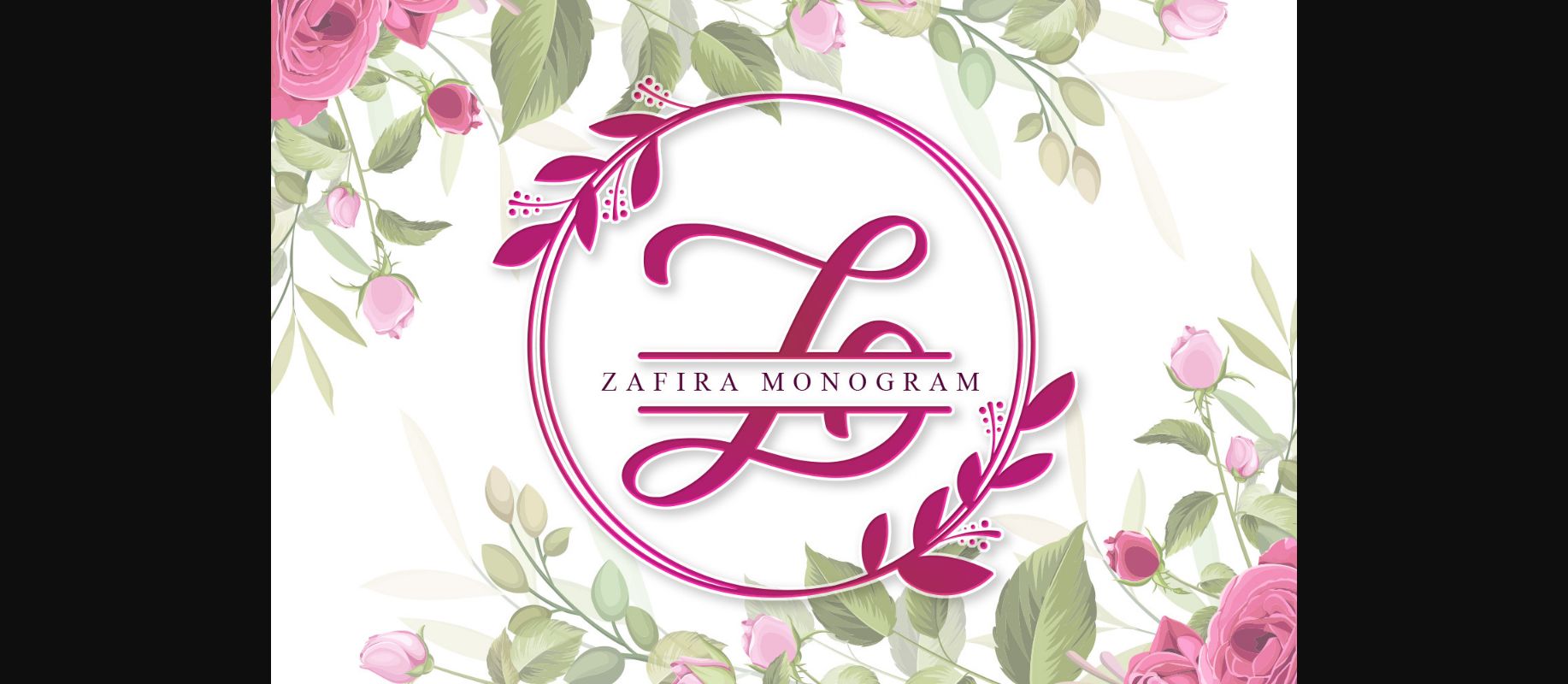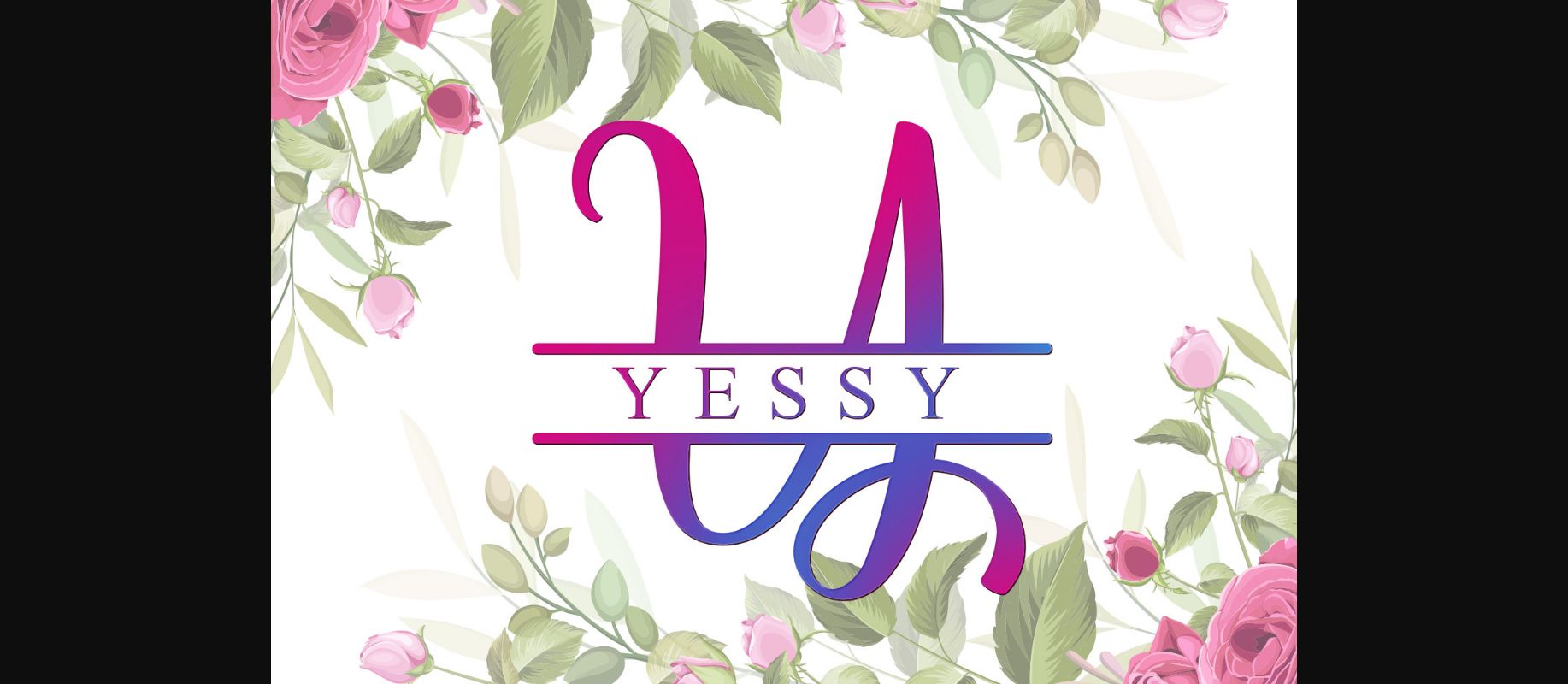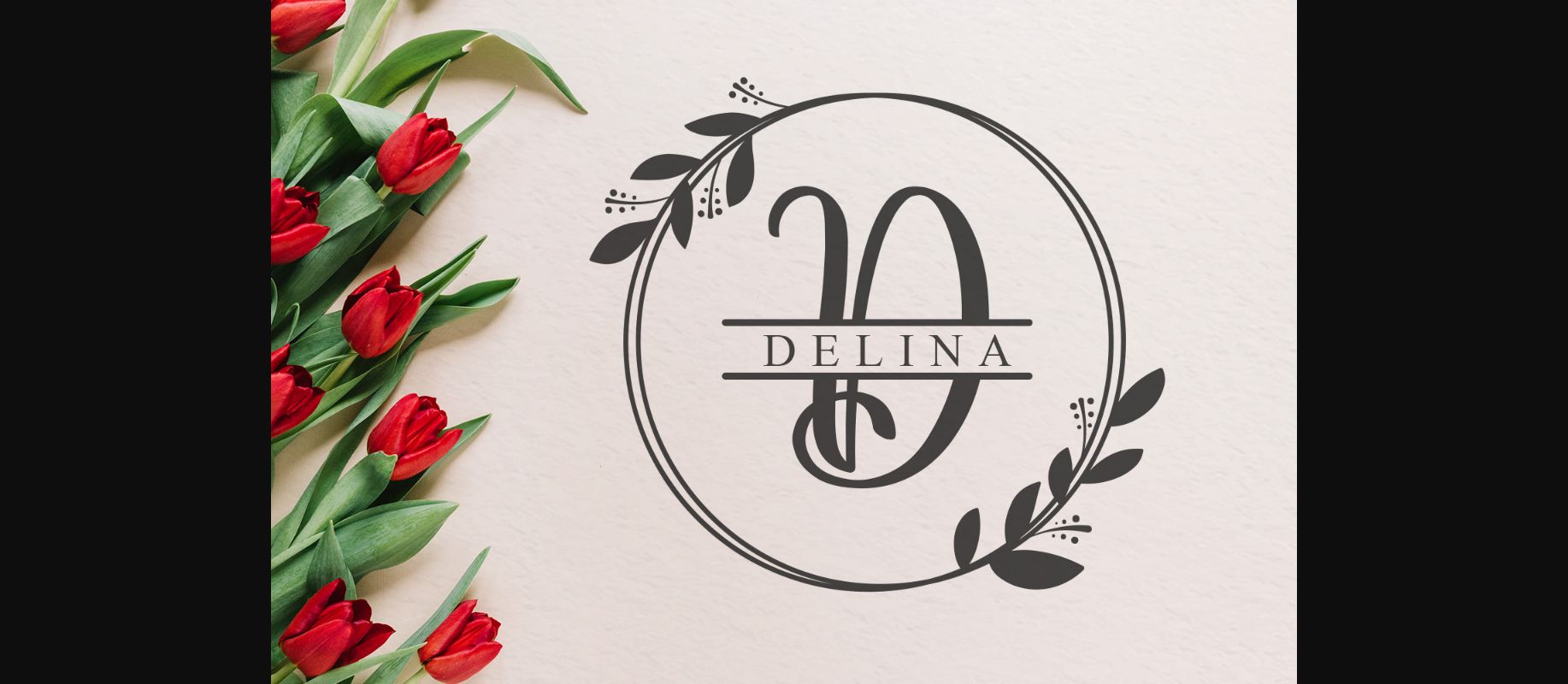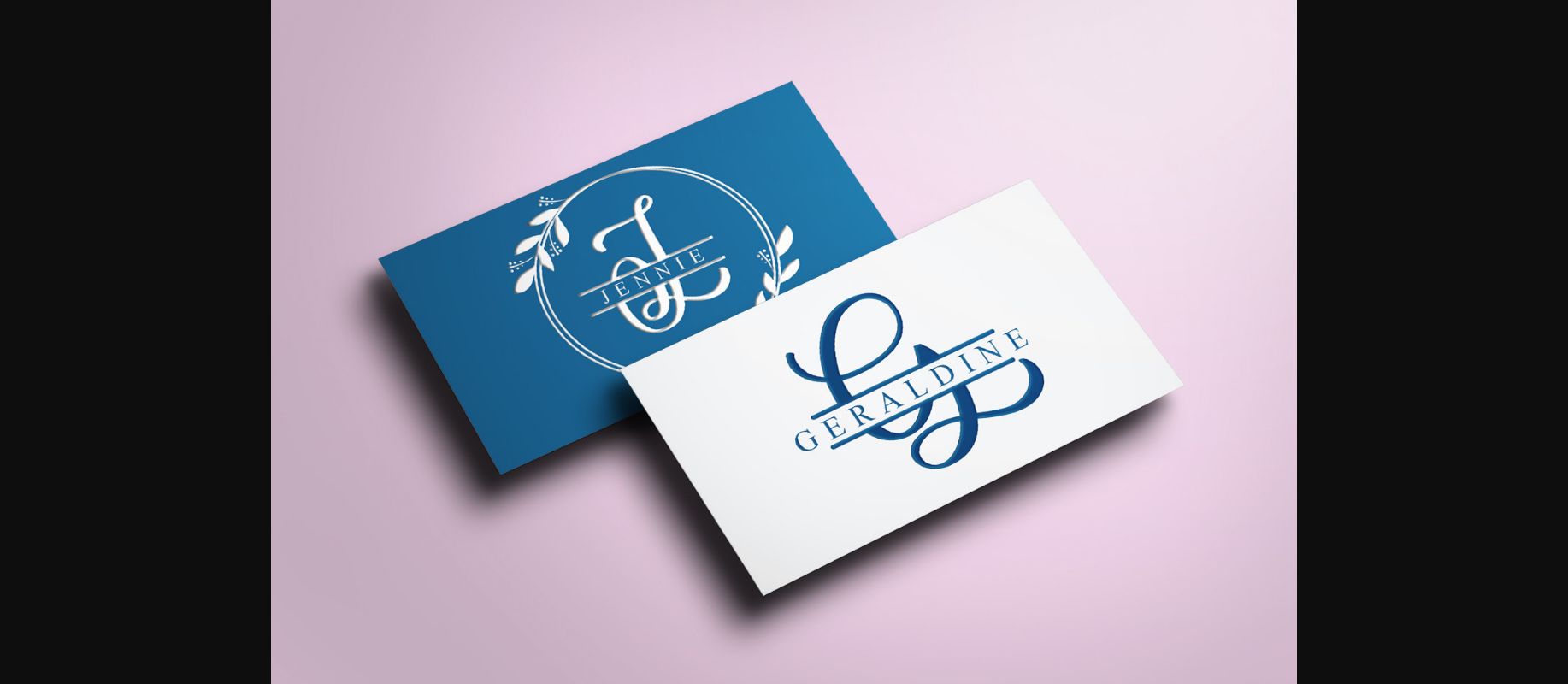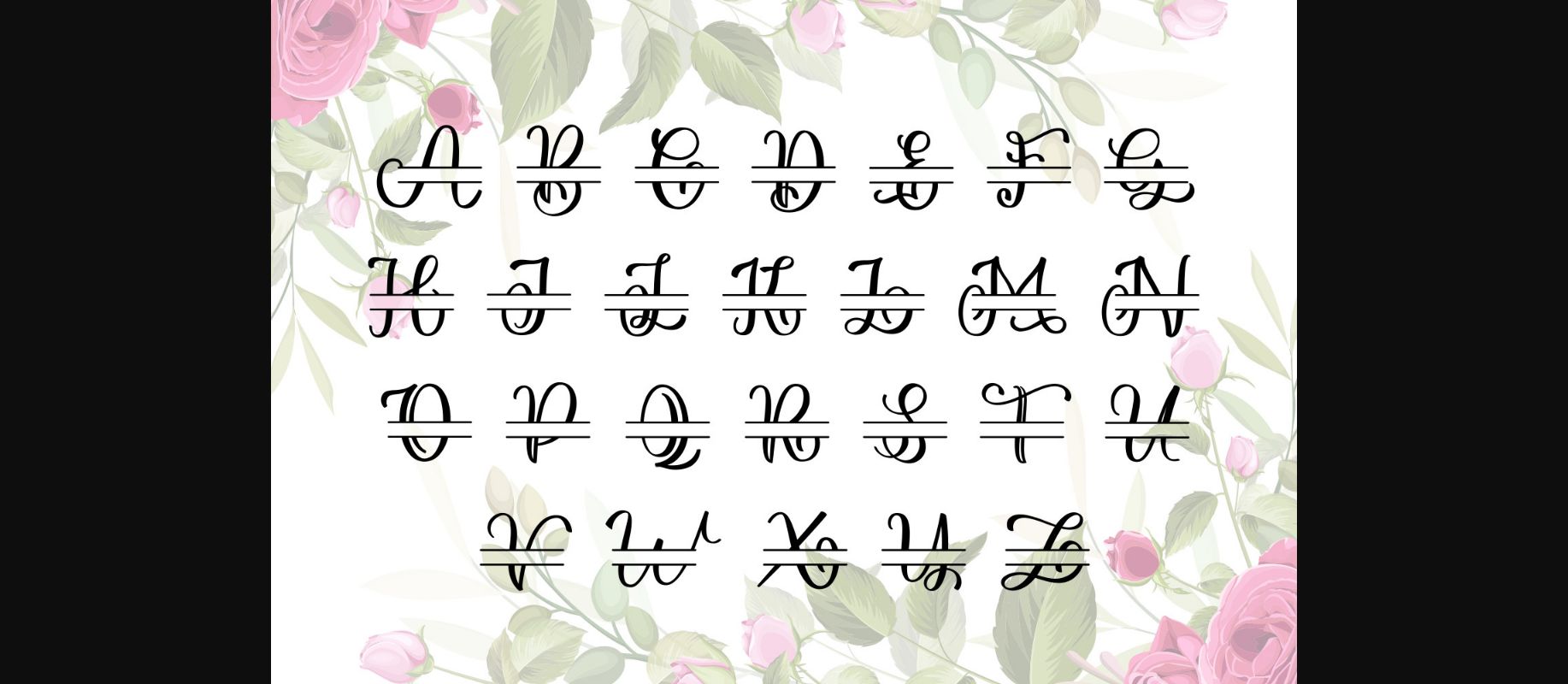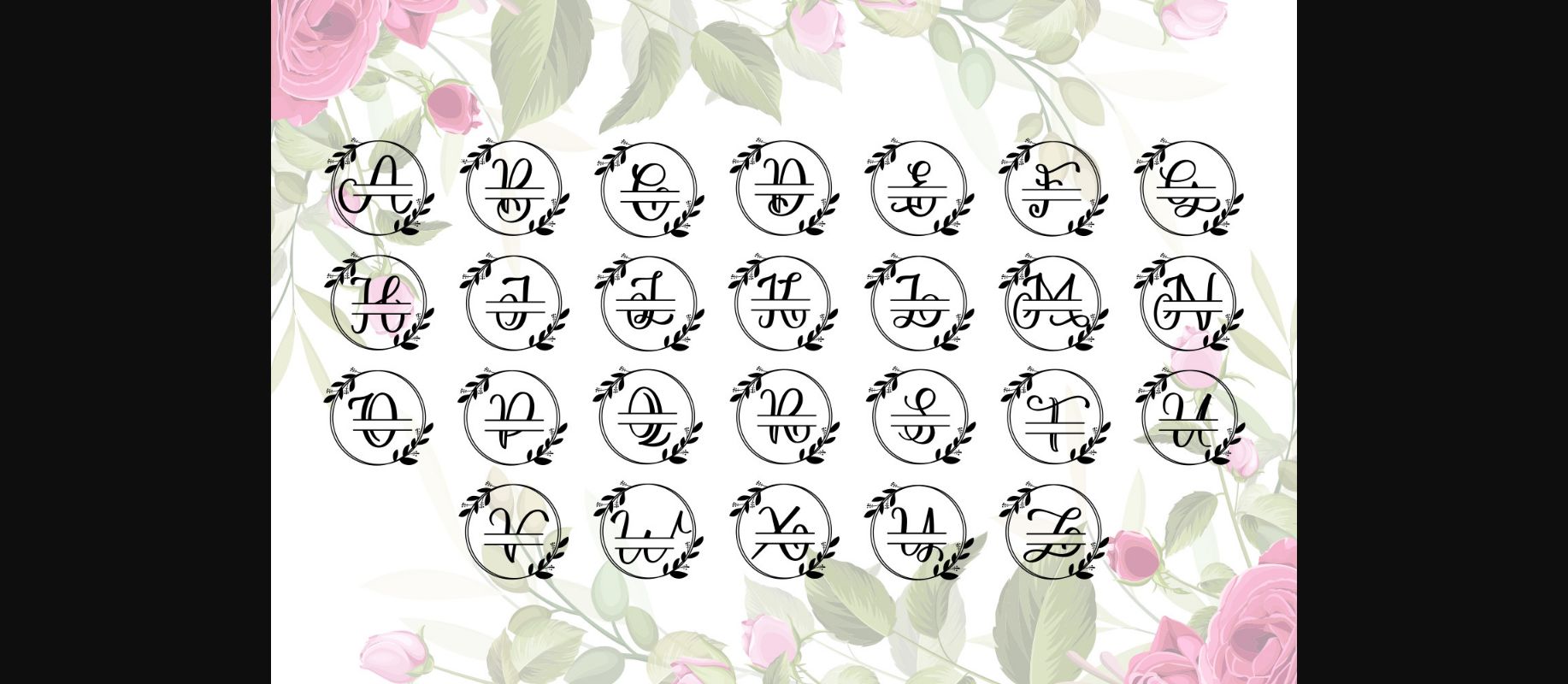
Zafira Monogram Font Font
About Zafira Monogram Font
Zafira Monogram is a charming and delicate decorative font. Fall in love with its authentic feel and use it to create gorgeous invitations, beautiful stationary art, eye-catching social media posts, and cute greeting cards.